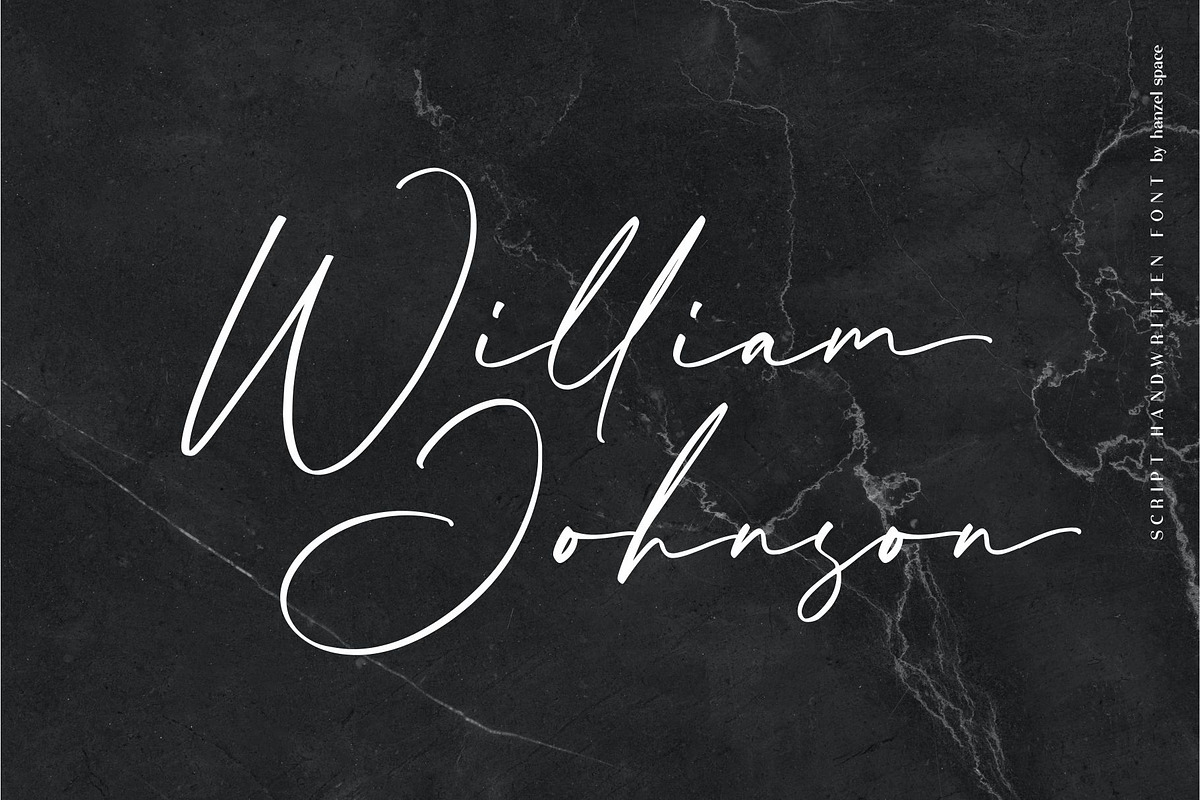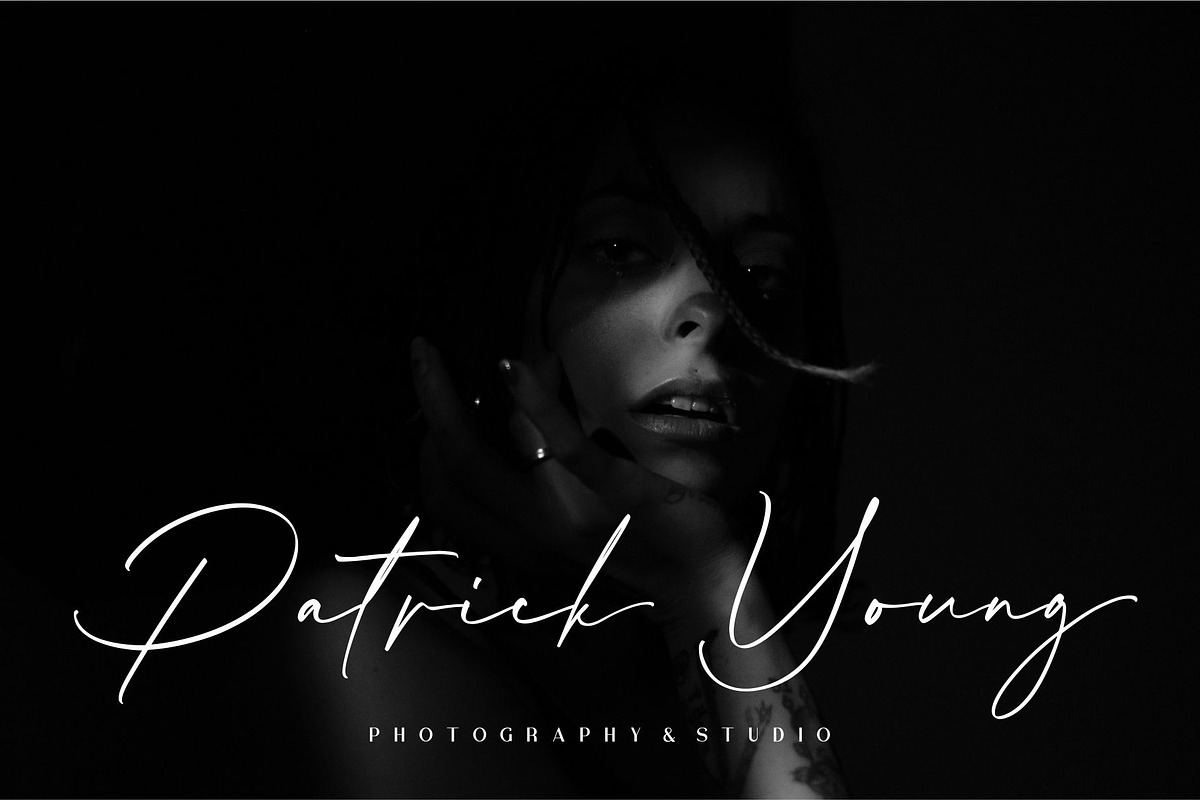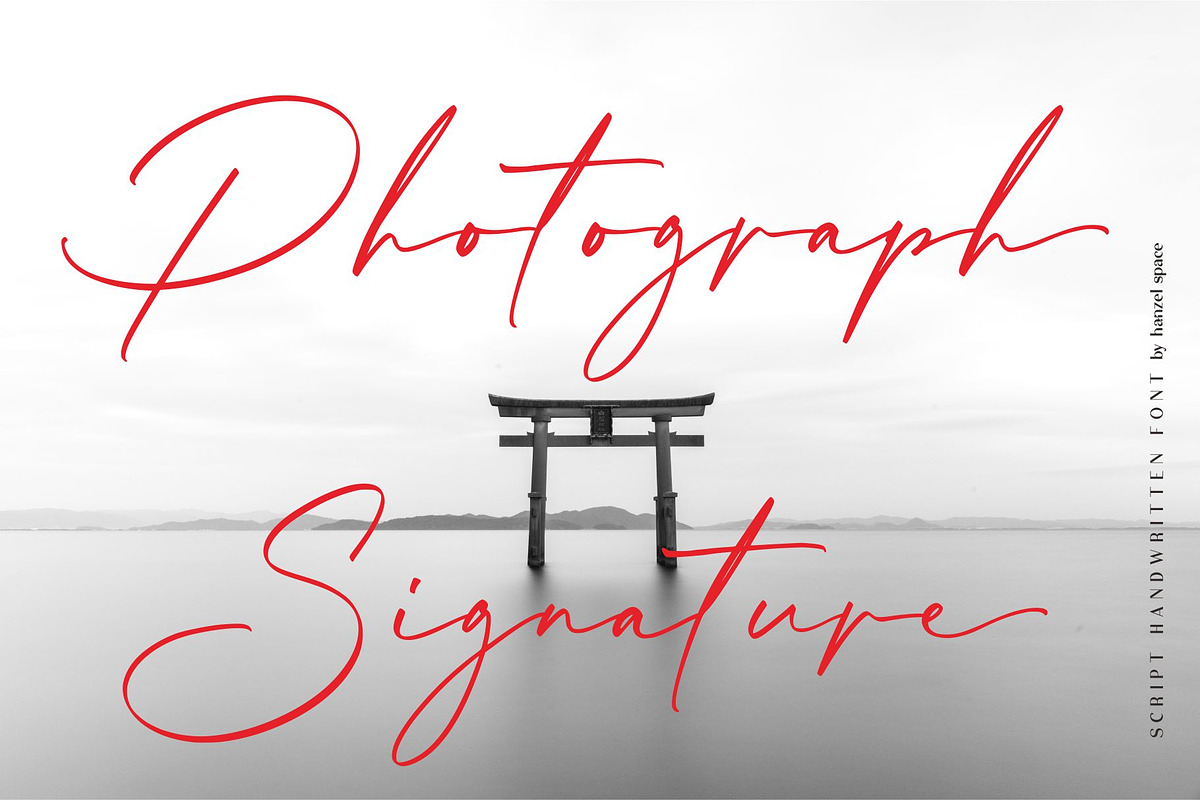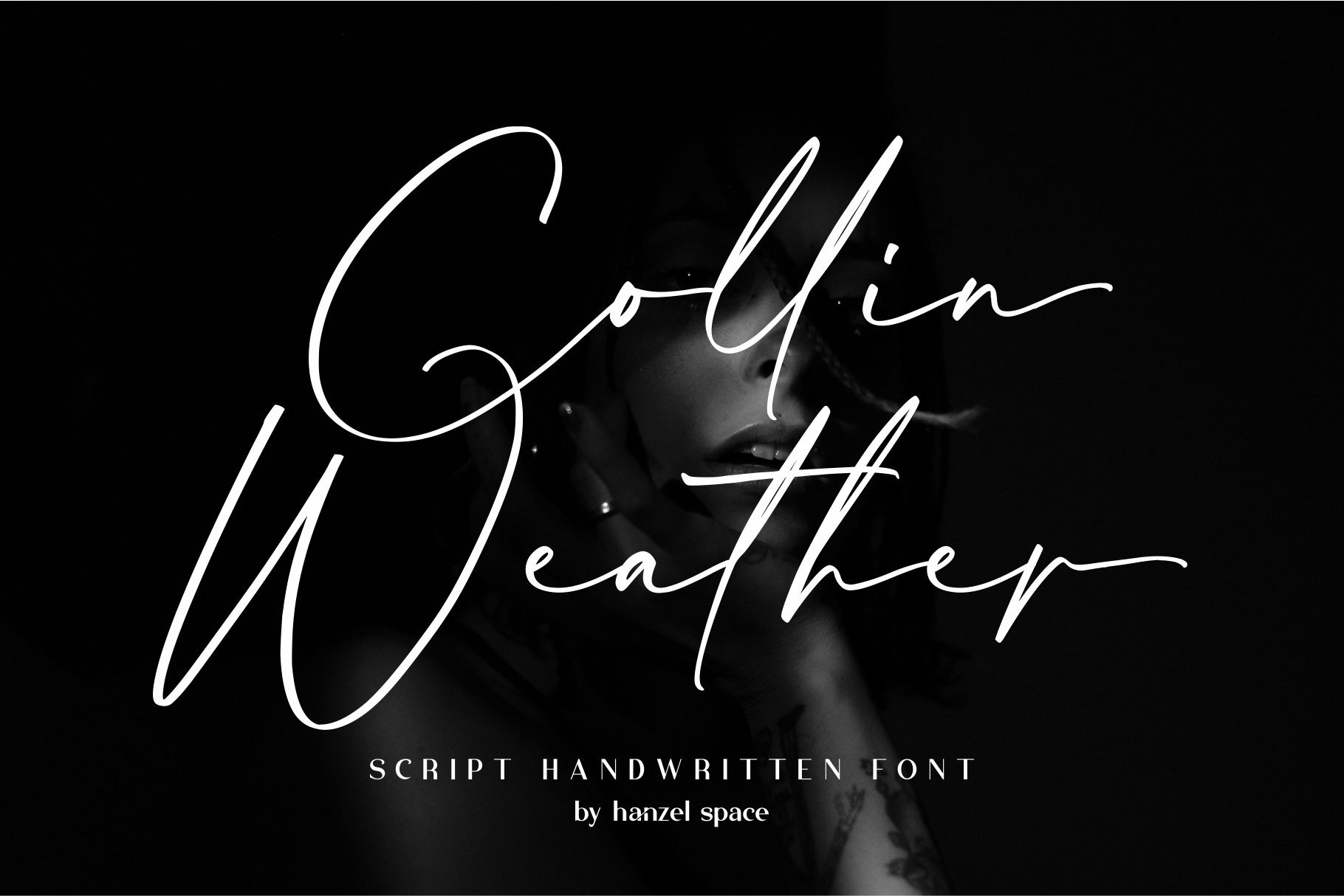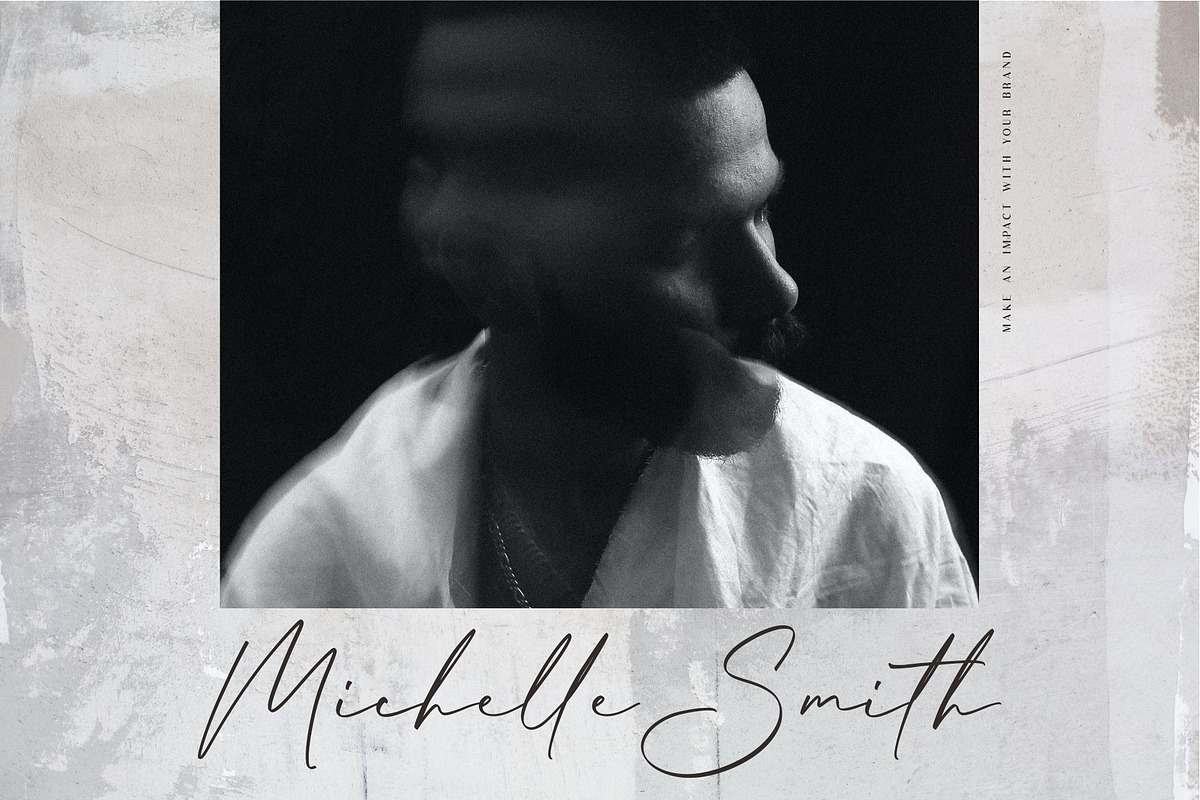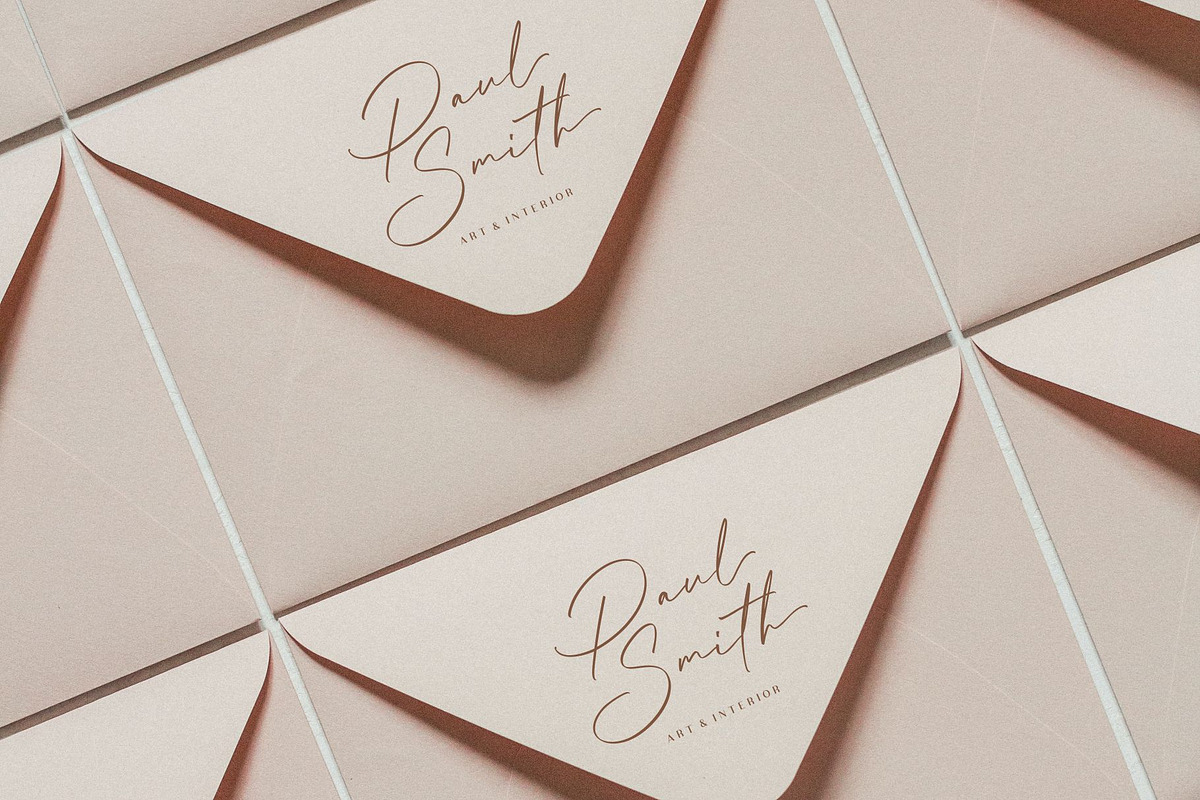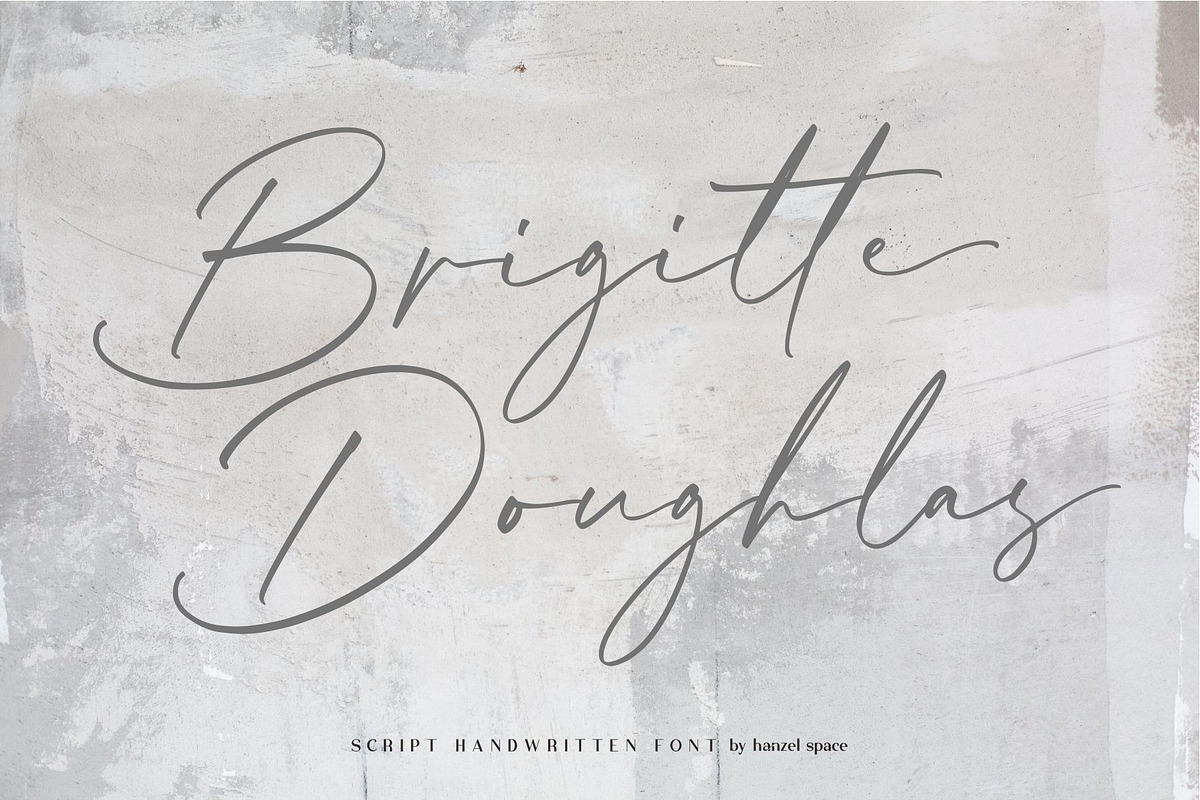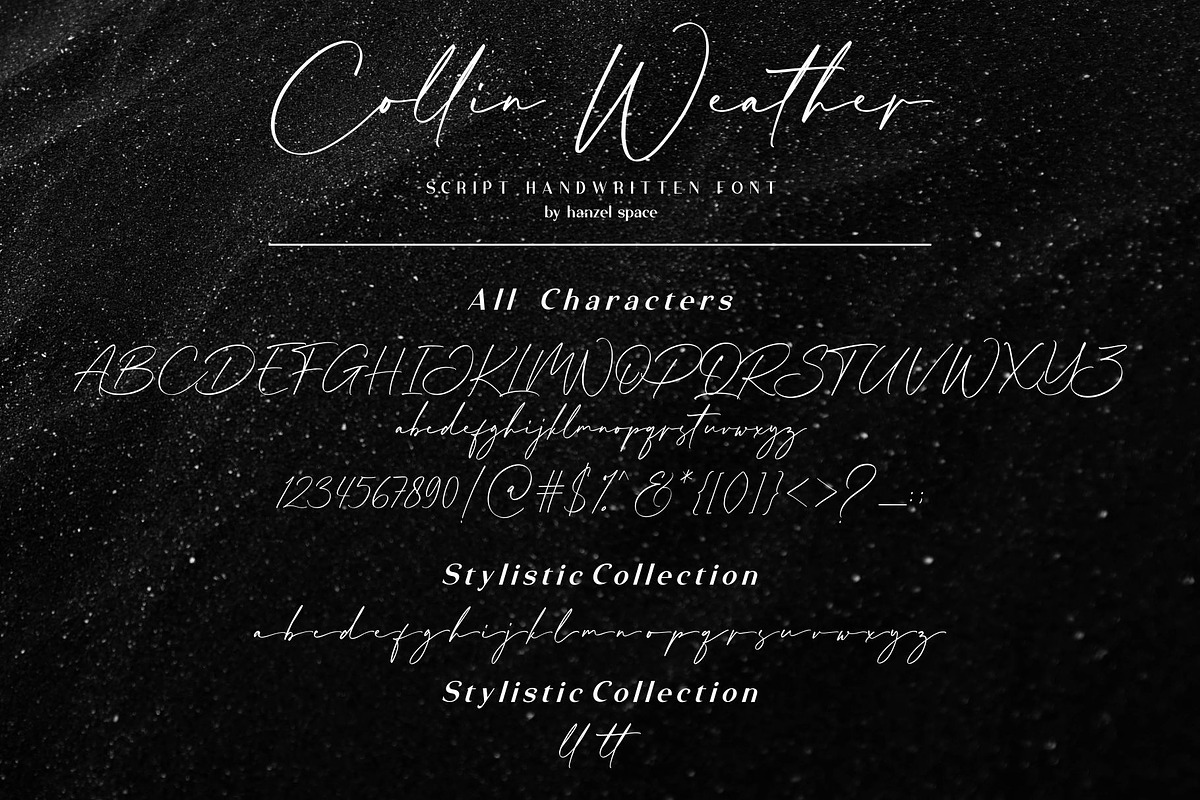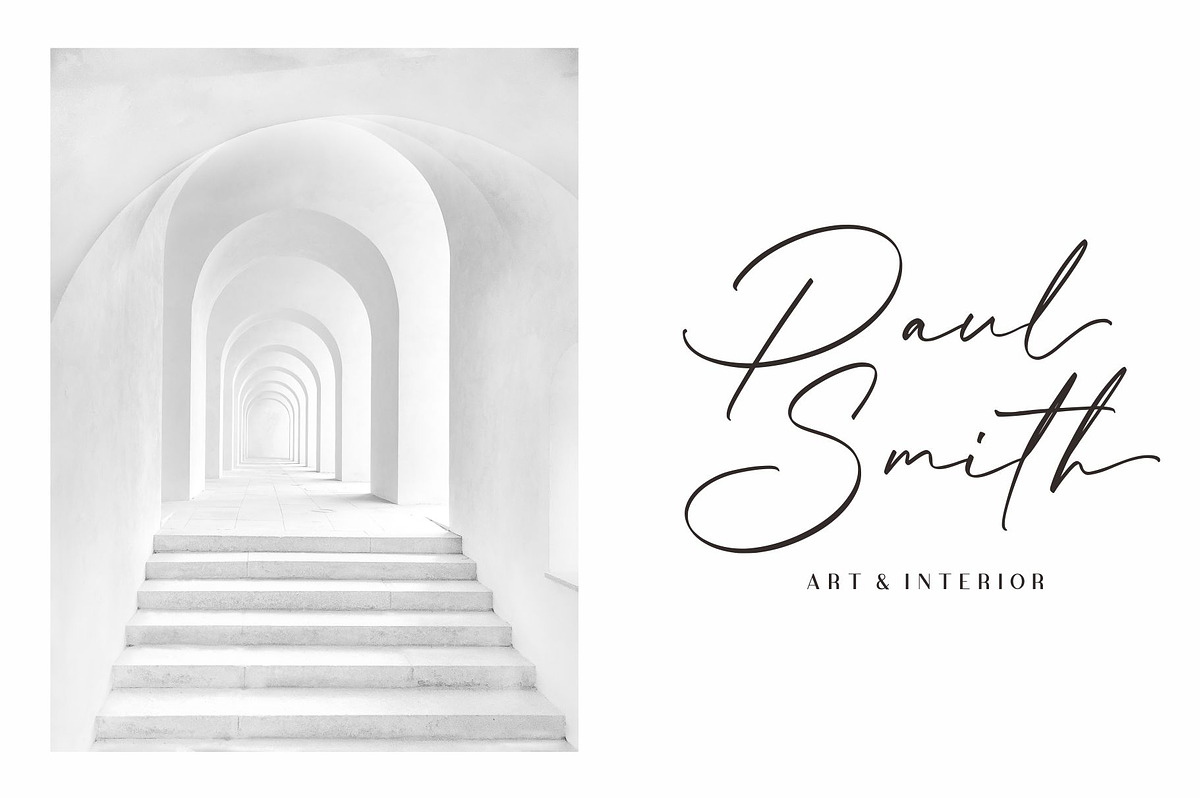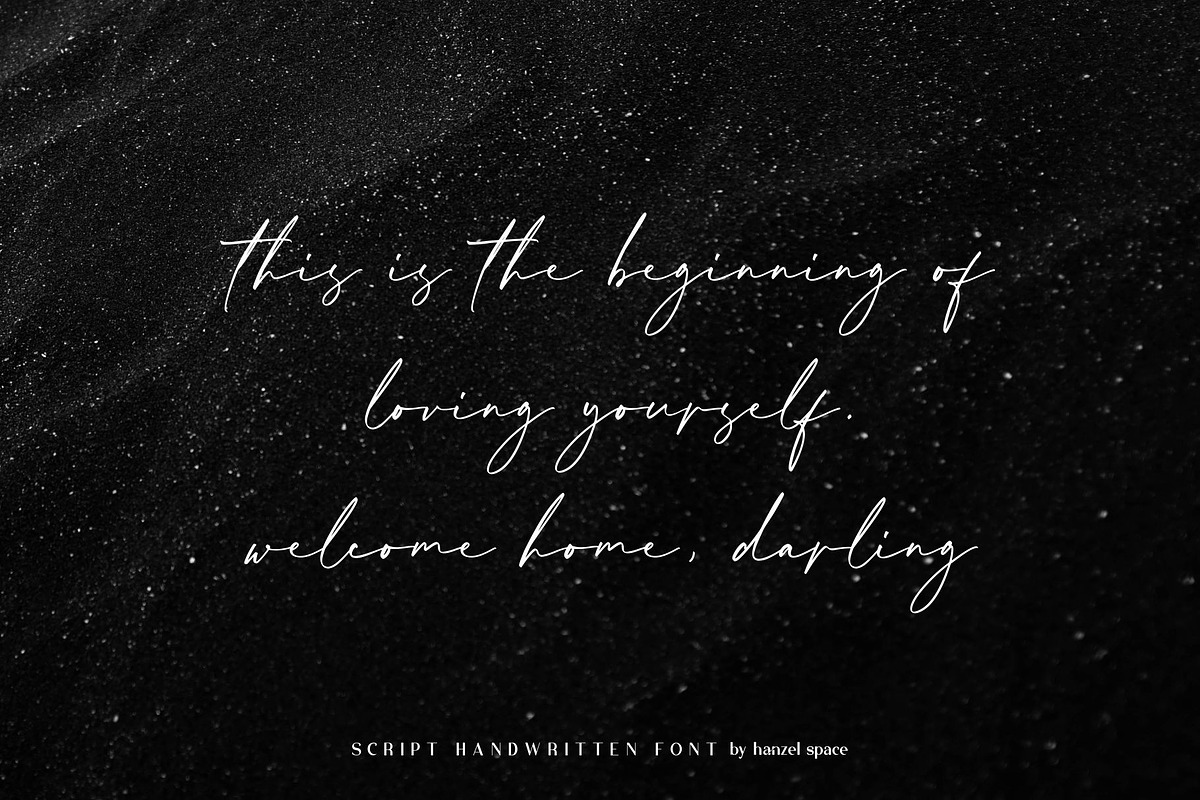
Collin Weather | Handwritten Font
Collin Weather is a handwritten font with casual chic flair. It is perfect for branding, wedding invites and cards, and maybe for red wine label.
Collin Weather includes full set of gorgeous uppercase and lowercase letters, numerals, a large range of punctuation. All lowercase letters include ending swashes, giving realistic hand-lettered style. What you get, darling?